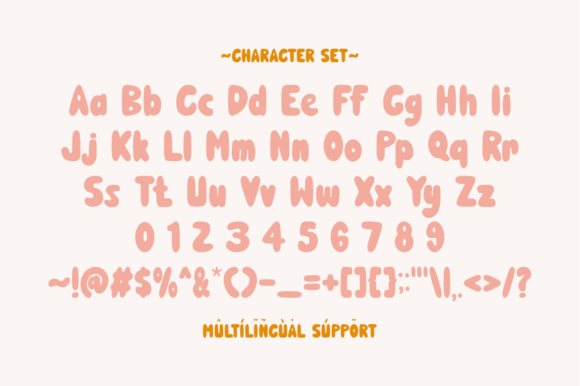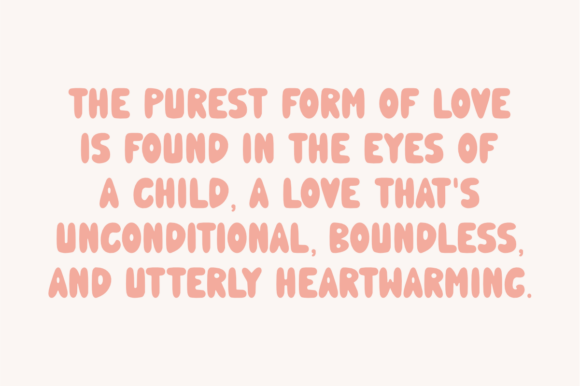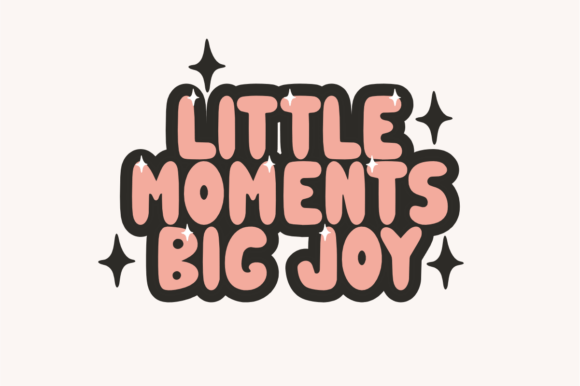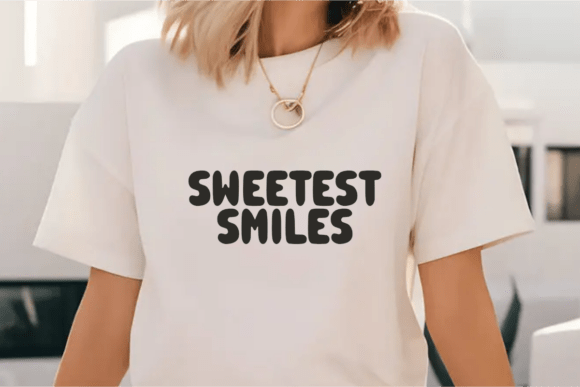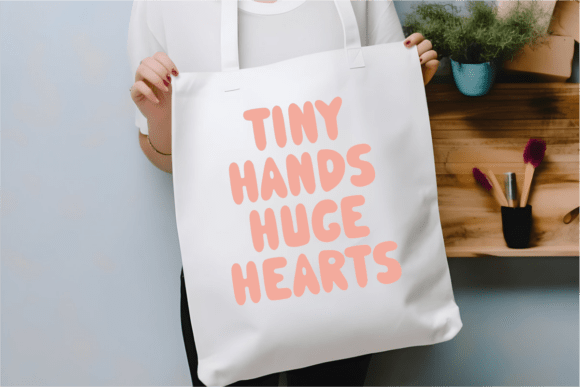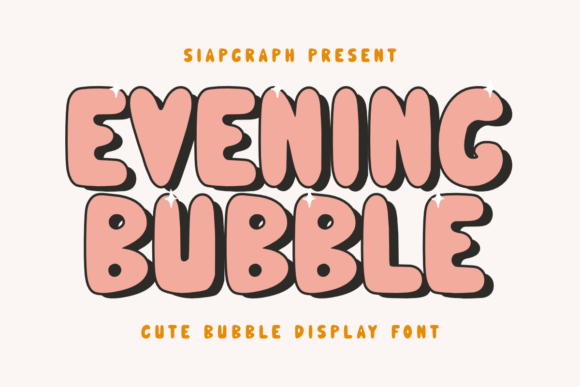
Introducing Evening Bubble Font: The Playful and Charming Typeface to Elevate Your Designs
Are you looking for a font that can add a touch of playfulness and whimsy to your designs? Look no further than Evening Bubble Font, a charming and cute bubble font that’s perfect for creating eye-catching headlines, posters, social media graphics, and branding. With its soft curves and bold appearance, this delightful font is sure to bring your ideas to life and make your designs stand out.
The Characteristics of Evening Bubble Font
Evening Bubble Font is a unique and versatile typeface that’s designed to add a dreamy touch to your designs. Its soft, rounded curves and bold appearance make it perfect for creating a wide range of designs, from playful and fun to elegant and sophisticated. The font’s bubble-like shape gives it a lighthearted and airy feel, making it ideal for designs that require a touch of whimsy and playfulness.
Evening Bubble Font is a versatile font that can be used for a wide range of design projects, including:
- Headlines and Titles: Use Evening Bubble Font to create eye-catching headlines and titles that grab attention and make a statement.
- Posters and Flyers: Add a playful touch to your posters and flyers with this charming font that’s sure to stand out.
- Social Media Graphics: Use Evening Bubble Font to create engaging and shareable social media graphics that showcase your brand’s personality.
- Branding and Packaging: Add a touch of whimsy and playfulness to your branding and packaging with this delightful font.
Why Choose Evening Bubble Font?
There are many reasons why Evening Bubble Font is a great choice for designers and crafters, including:
- Unique and Playful Design: Evening Bubble Font has a unique and playful design that’s sure to make your designs stand out.
- Versatile: This font can be used for a wide range of design projects, from playful and fun to elegant and sophisticated.
- Easy to Read: Despite its playful design, Evening Bubble Font is easy to read and understand, making it perfect for use in body text and captions.
- High-Quality: This font is designed to high-quality standards, ensuring that it looks great in any design.
Tips for Using Evening Bubble Font
Here are a few tips for using Evening Bubble Font in your designs:
- Use it as a Headline Font: Evening Bubble Font is perfect for use as a headline font, where its bold and playful design can really make an impact.
- Pair it with Other Fonts: Experiment with pairing Evening Bubble Font with other fonts to create a unique and interesting design.
- Use it in Combination with Images: Use Evening Bubble Font in combination with images to add a touch of whimsy and playfulness to your designs.
Evening Bubble Font is a charming and cute bubble font that’s perfect for designers and crafters looking to add a touch of playfulness and whimsy to their designs. With its soft curves and bold appearance, this delightful font is sure to bring your ideas to life and make your designs stand out. Whether you’re creating headlines, posters, social media graphics, or branding, Evening Bubble Font is a versatile and high-quality font that’s sure to meet your needs.